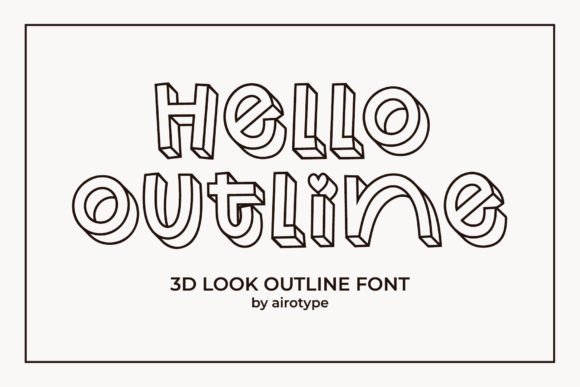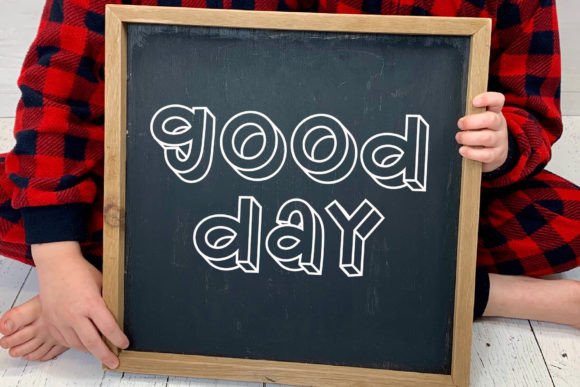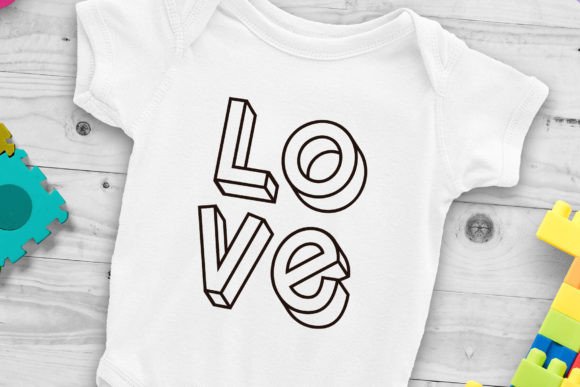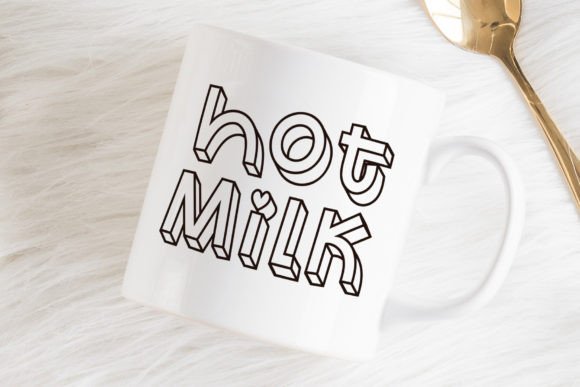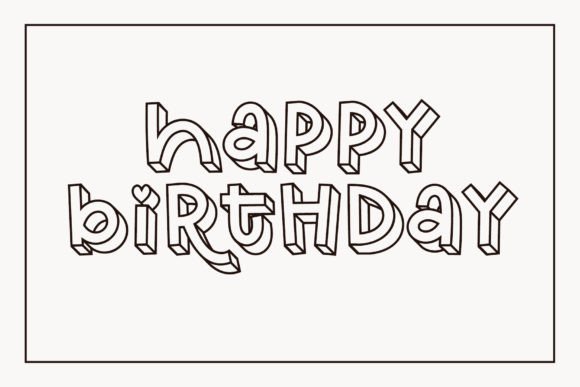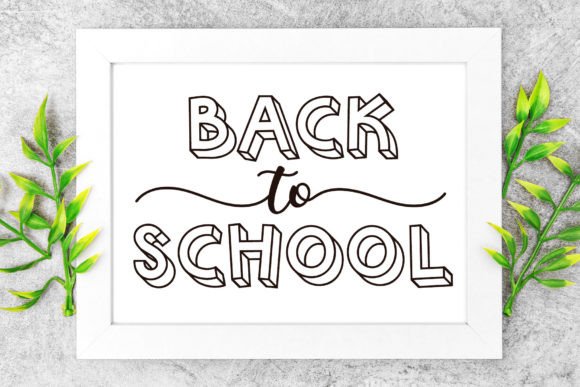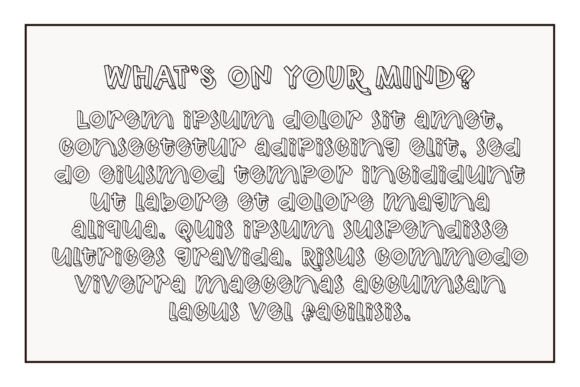
Meet the Font that Brings Joy to Your Designs
Do you ever find yourself staring at a blank page, struggling to bring your creative vision to life? You’re not alone. Sometimes all it takes is the right font to spark inspiration and set your imagination free. For designers seeking to add a playful touch to their projects, the Hello Outline Font is a game-changer.
This charming outline 3D font is designed to bring a smile to your face and a dash of whimsy to your designs. Whether you’re creating a back-to-school theme, a birthday invitation, or a sticker for a special occasion, the Hello Outline Font is the perfect companion. Its cute and quirky vibe makes it a valuable asset for designers looking to add a touch of personality to their work.
Hello Outline Font Key Features
- Font Family: Hello Outline Font is a sans-serif font family that provides a unique and modern outline design.
- Unique Characteristics: The font’s distinctive outline design and carefully crafted letterforms make it ideal for use in digital and print media, including signage, advertising, and editorial content.
Hello Outline Font Review
First off, I have to say that I was really excited to dive into the Hello Outline Font and see what it had to offer. Here are some things that I think work really well:
- ✨ Unique and modern aesthetic: The Hello Outline Font has a distinctive look that sets it apart from other fonts. It’s perfect for adding a touch of elegance to your designs.
- ✨ High level of customization: The font is highly customizable, allowing you to adjust the width, height, and even the outline style to fit your needs.
That being said, I do have a few concerns:
- ⚠️ Limited character set: The font only includes basic characters, which might be a problem if you need to use it for a project that requires a lot of special characters or languages.
- ⚠️ Not ideal for body text: While the font looks great for headings and titles, it’s not the most readable font for large blocks of text.
Overall, I think the Hello Outline Font is a great choice for designers looking to add some visual interest to their projects. Just be aware of its limitations and use it in the right context.
Getting the Most Out of the Hello Outline Font
To get the most out of the Hello Outline Font, consider the following tips:
- Use it to create visually appealing titles and headings.
- Experiment with different font sizes and styles to achieve the desired effect.
- Combine with other fonts to create a unique and eye-catching design.
The Hello Outline Font is commonly used in:
- Designing titles and headings for presentations and documents.
- Creating eye-catching graphics and illustrations.
- Adding a unique touch to social media